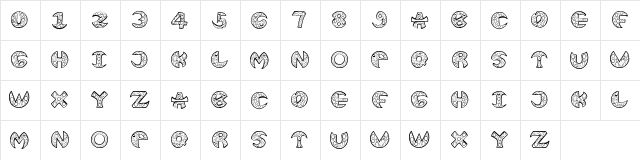
BUBBLE IN TEXT Regular
Design Context for BUBBLE IN TEXT Typeface
BUBBLE IN TEXT has an approachable, lighthearted character — its loose, expressive forms are well-suited to children's content, casual branding, and fun-first design.
Font Pairing: Pairs well with a rounded or humanist sans for body copy, maintaining the friendly tone without relying on BUBBLE IN TEXT to carry extended reading.
Pro Tip: Avoid using BUBBLE IN TEXT for long passages of text — it works best for headlines, labels, and short calls to action.